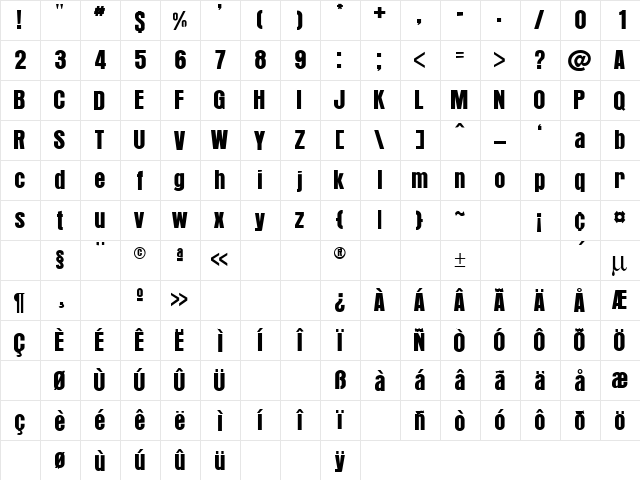
Loving29 Regular
Design Context for Loving29 Typeface
Loving29 offers clean, dependable letterforms without strong stylistic allegiance, making it a practical choice for designers who need flexibility.